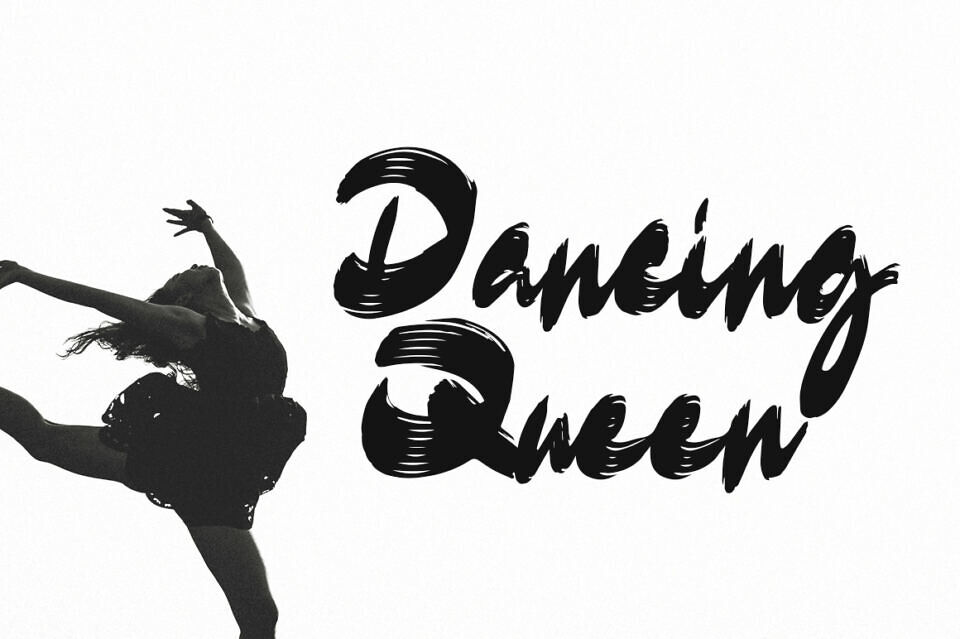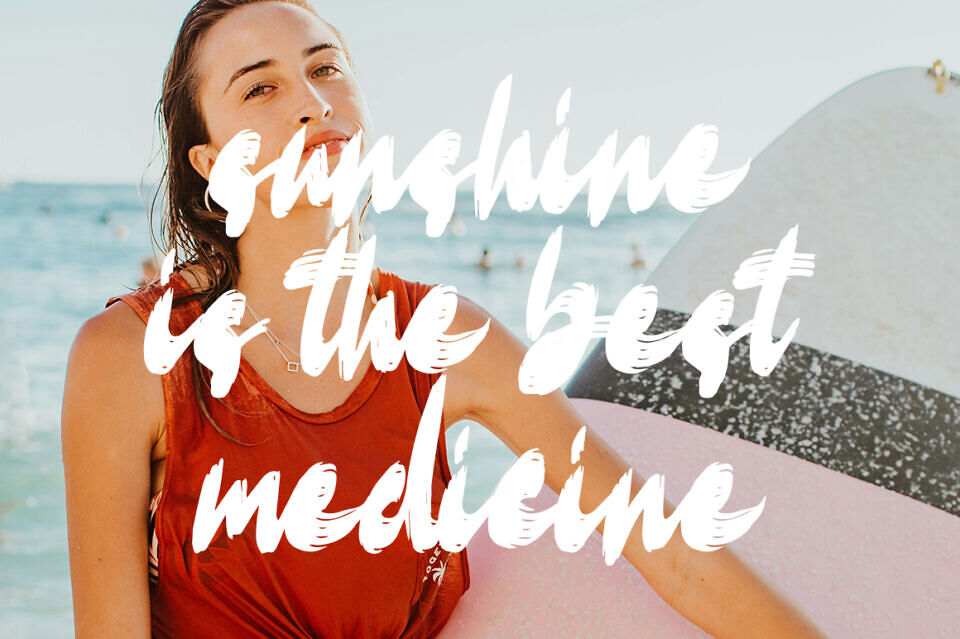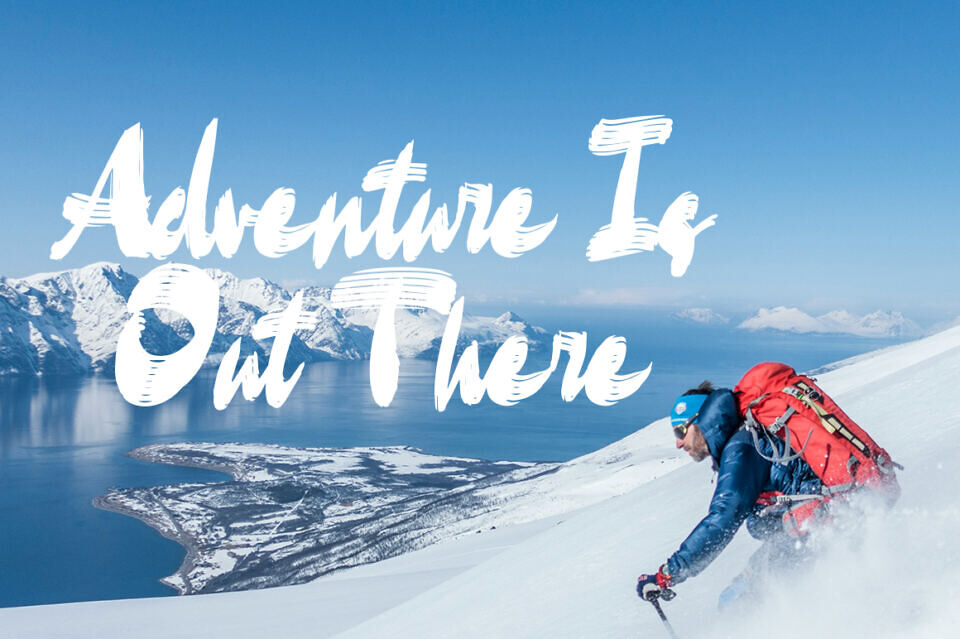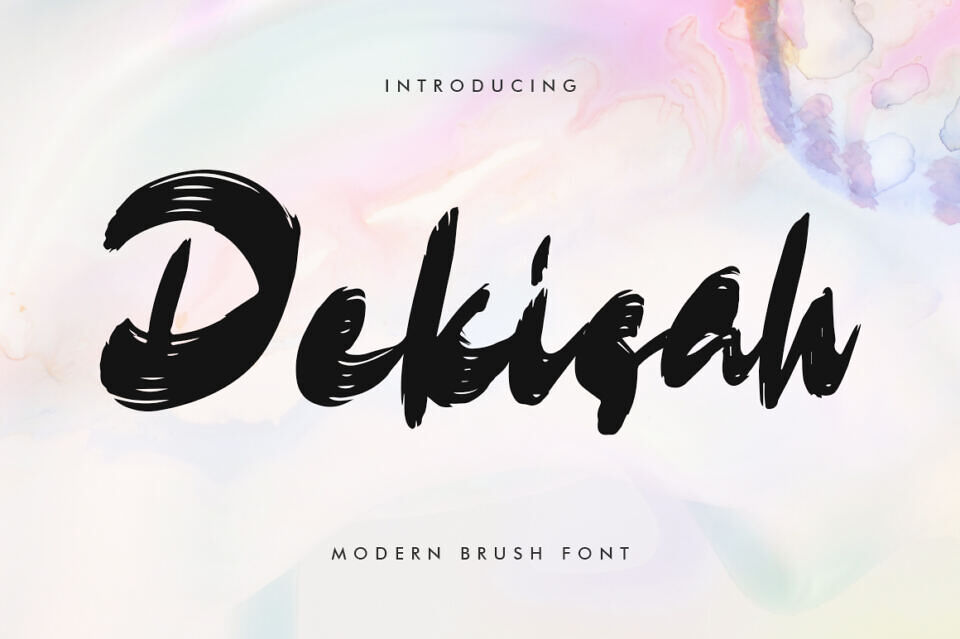
Dekisah Font
The Dekisah font is a bold and expressive modern brush font that captures the energy and spontaneity of hand-painted lettering. Its thick strokes and dynamic brush textures give it a raw, edgy look, while maintaining clarity and visual impact.
The letterforms are slightly irregular and organic, adding a natural flow and creative personality that makes the font feel alive and vibrant. The dry-brush texture enhances its artistic appeal, making it a powerful visual tool for catching attention.